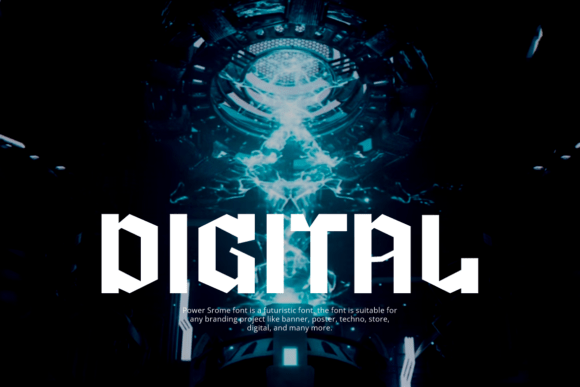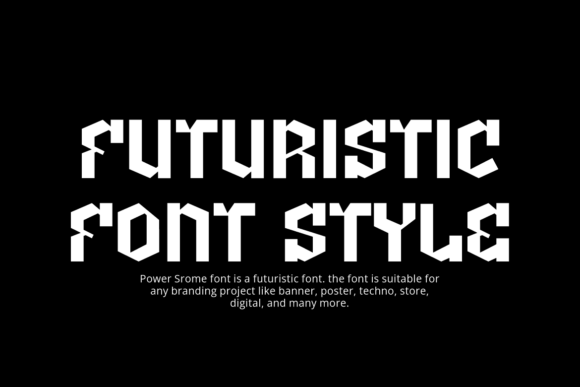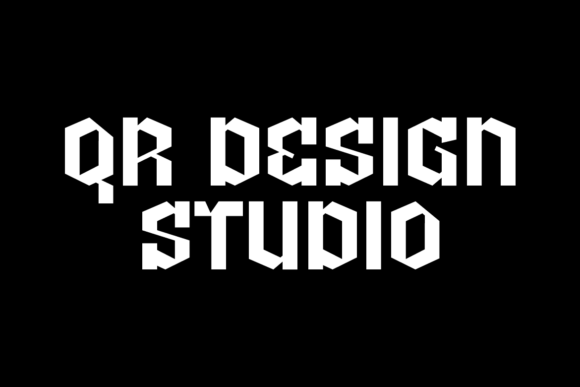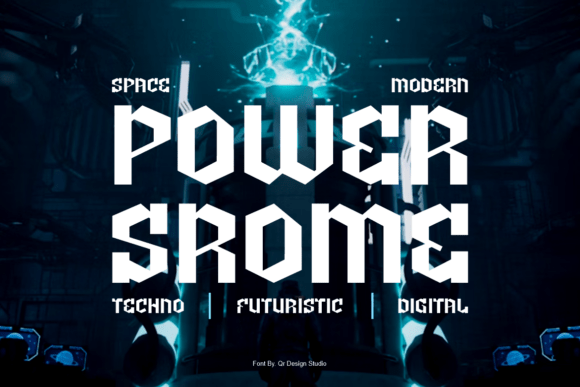
Introduction to Power Srome Font
Power Srome is a cool and bold display font.
Key Features of Power Srome Font
Why Choose Power Srome Font?
Power Srome Font offers exceptional quality and versatility, making it a valuable addition to your design toolkit. Whether you’re creating for personal projects or commercial use, Power Srome Font delivers professional results.